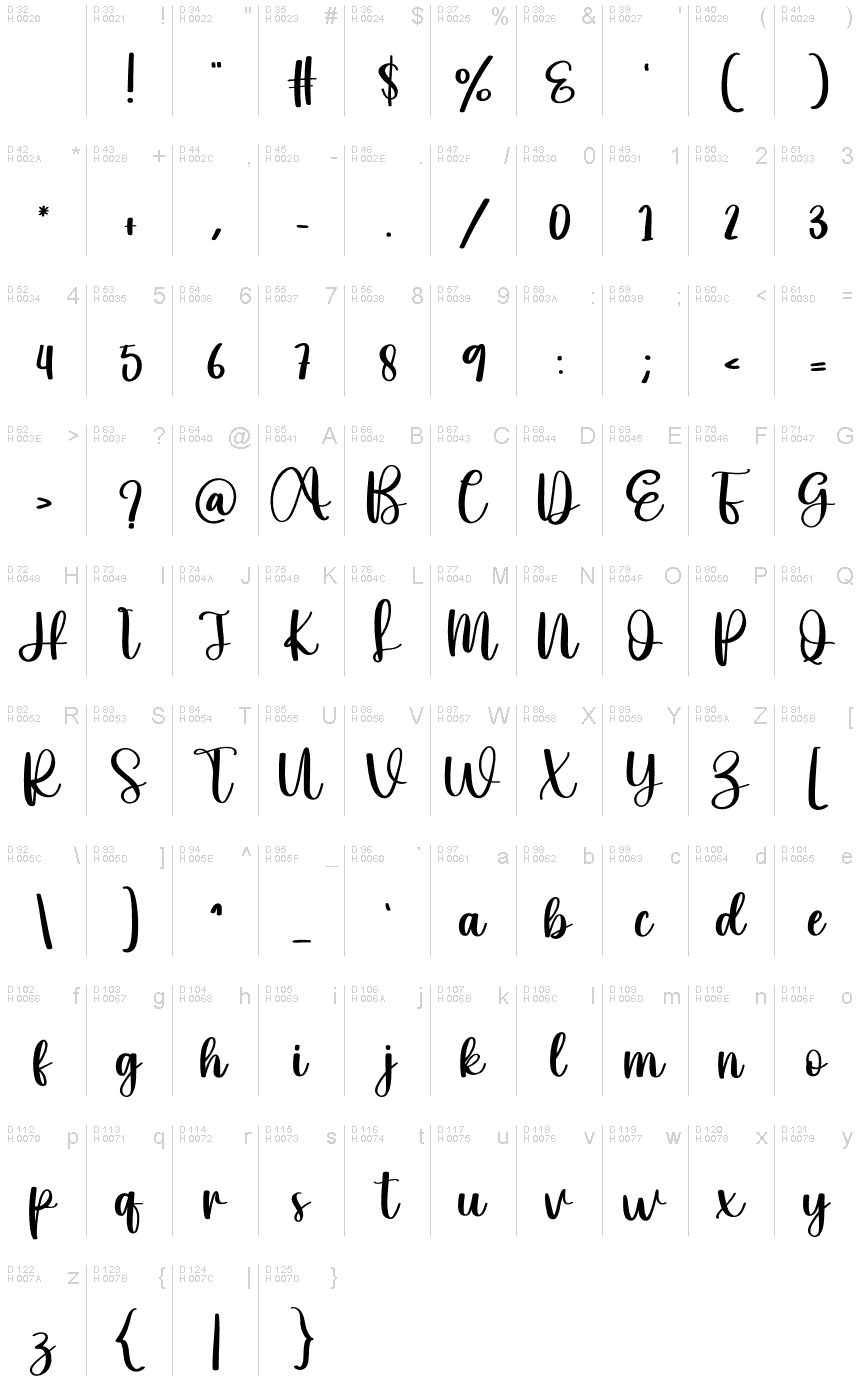
Autumn
Autumn, designed by Scratchones, is a calligraphy font that exudes elegance and a personal touch. Its sweeping curves and fine lines are reminiscent of traditional handwriting, bringing a level of sophistication and charm to any project. The fluidity of Autumn's characters adds an artistic flair that is both visually appealing and emotionally resonant.
With its calligraphic style, Autumn is the perfect choice for invitations, branding, and advertising that require a touch of class. It holds the potential to elevate creative designs with its graceful appearance, making it ideal for projects aiming to convey beauty, intimacy, or exclusivity.
Embrace the allure of Autumn for your next project and let its unique characteristics inspire designs that stand out with timeless appeal. Whether you're crafting wedding invitations or developing an upscale brand identity, this font's style will lend your work a distinguished quality that captures attention and hearts alike.